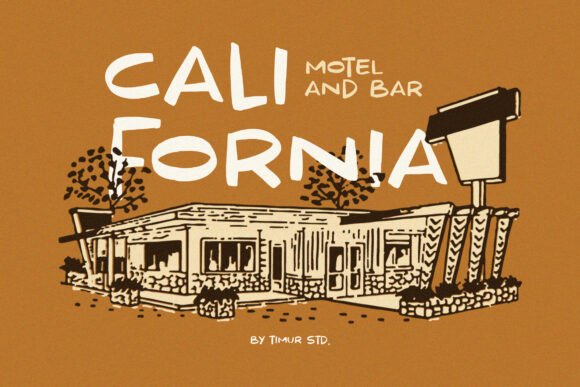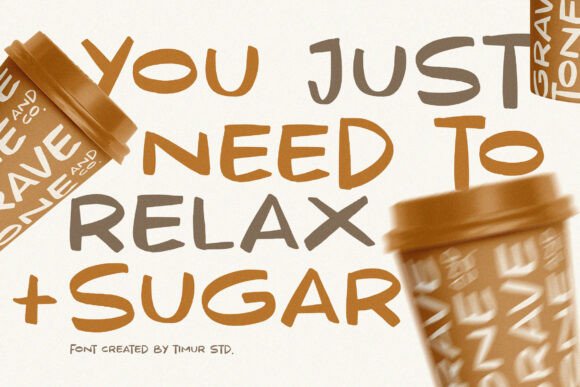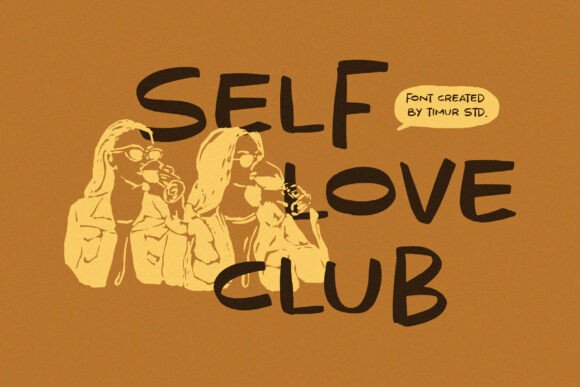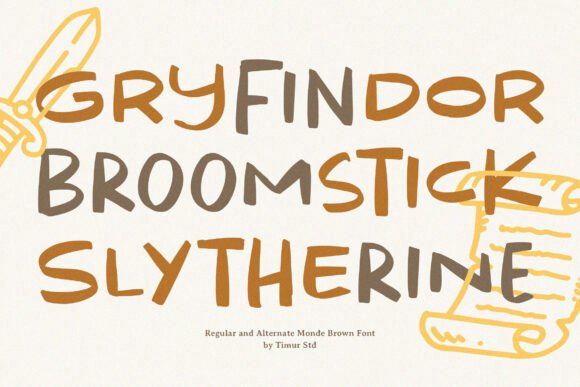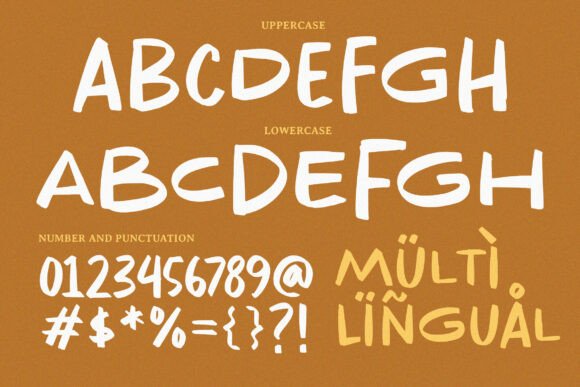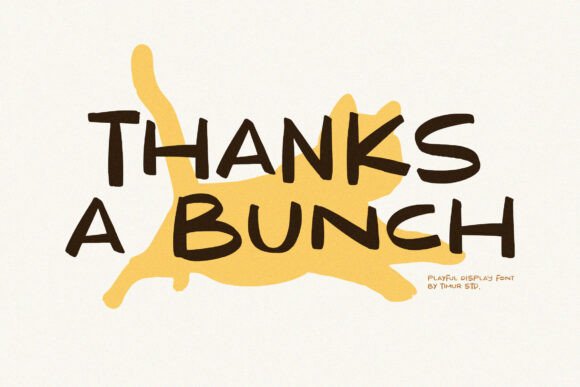
Introduction to Monde Brown Font Font
Fonts play a crucial role in design, and the Monde Brown Font font is a typeface that brings both character and versatility to any project. Whether you’re working on a branding project, a website, or a print design, the Monde Brown Font font offers a unique style that can elevate your work.
Monde Brown is a playful and dynamic display font designed to bring a lively and engaging feel to your projects.
Characterized by a bold aesthetic and rounded edges, it is ideal for branding, headlines, logos, and editorial designs The font includes enabling creative and fluid combinations for enhanced visual appeal.
The Monde Brown Font font is more than just a typeface – it’s a design tool that helps you communicate your message with style and clarity. Its unique character set and versatile design make it suitable for a wide range of applications, from elegant invitations to bold headlines.
With its carefully crafted letterforms and balanced proportions, the Monde Brown Font font ensures readability and visual appeal across all mediums.
The Monde Brown Font font stands out with its unique design, exceptional readability, and versatility across various design applications.